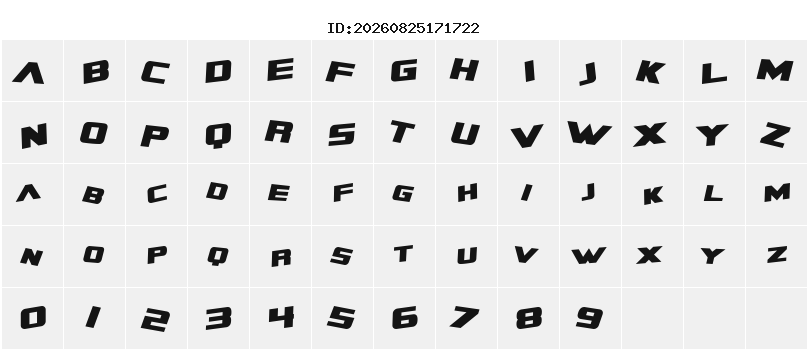
• Font Name: SF Zero Gravity
• Full Font Name: SF Zero Gravity Bold Italic
About SF Zero Gravity.ttf
SF Zero Gravity.ttf is a modern, elegant sans-serif font designed for ultimate readability and visual harmony. Perfect for branding, headlines, web design, and print materials.